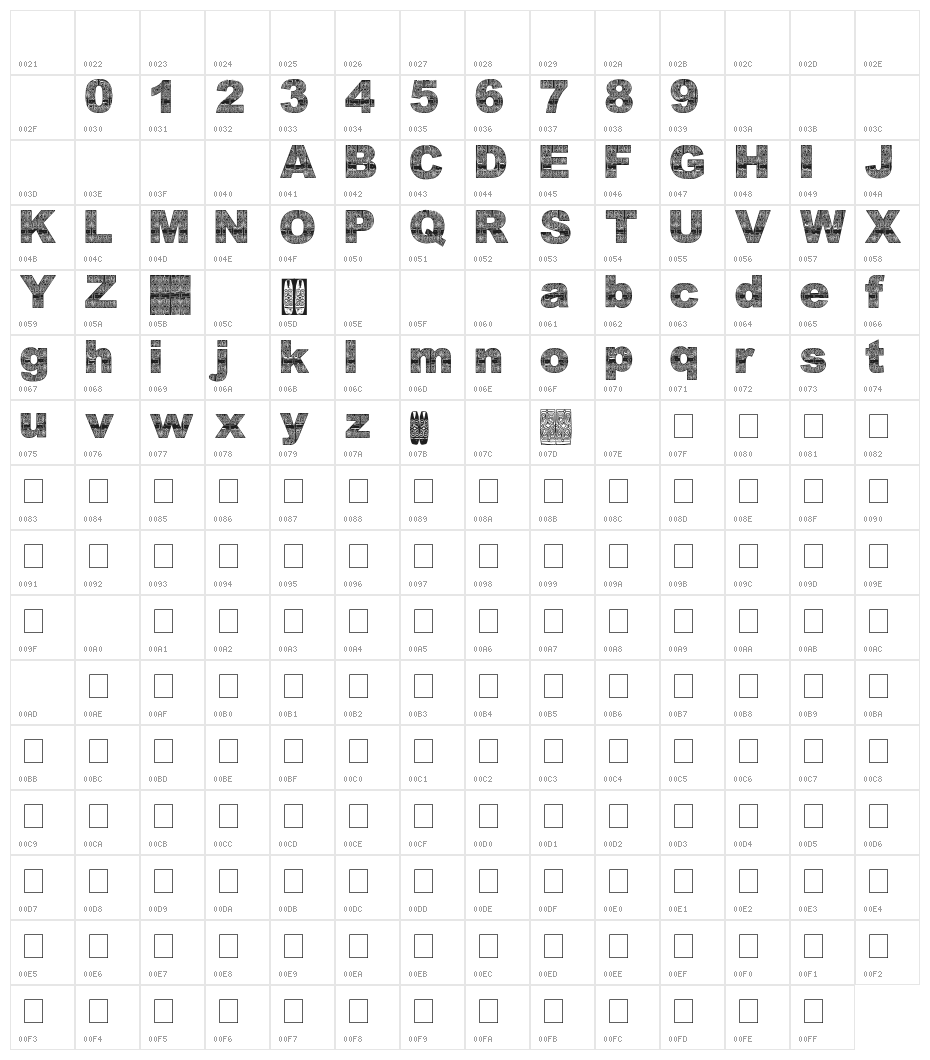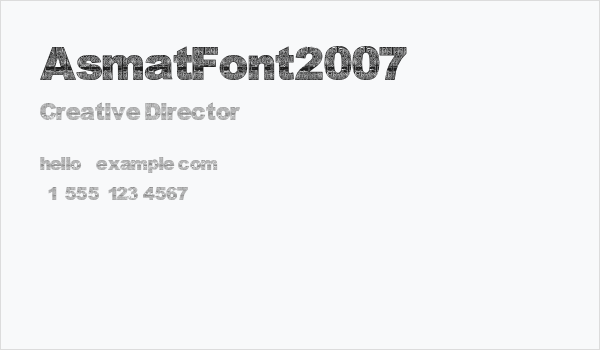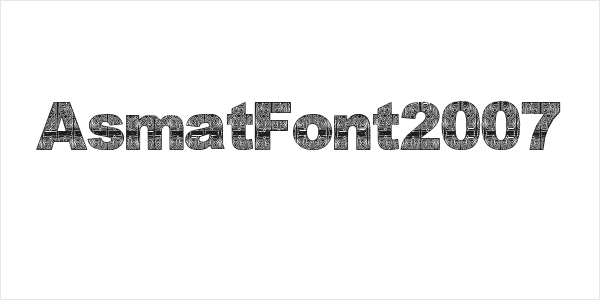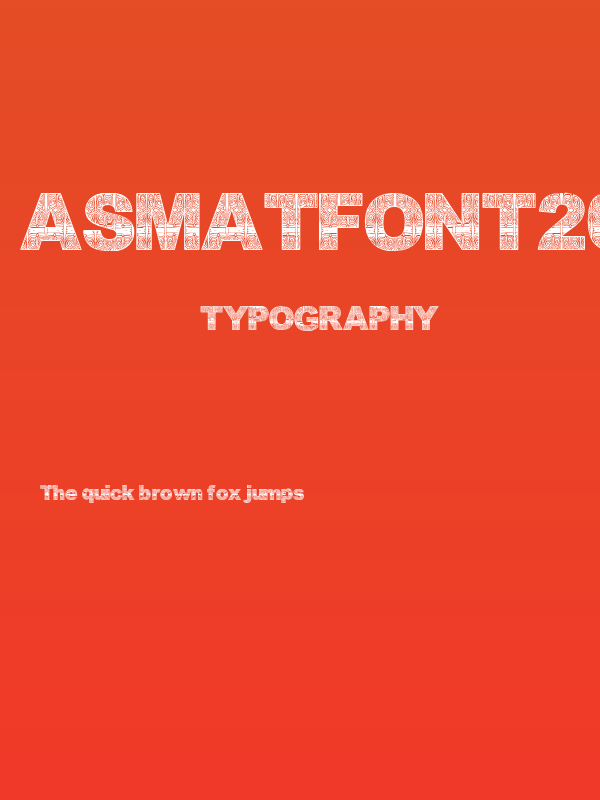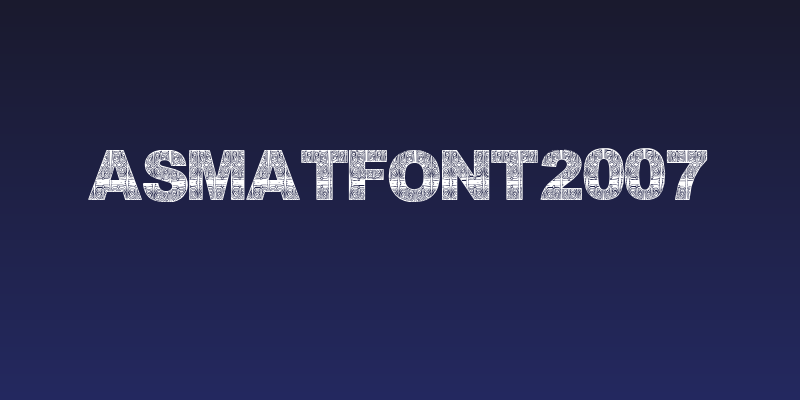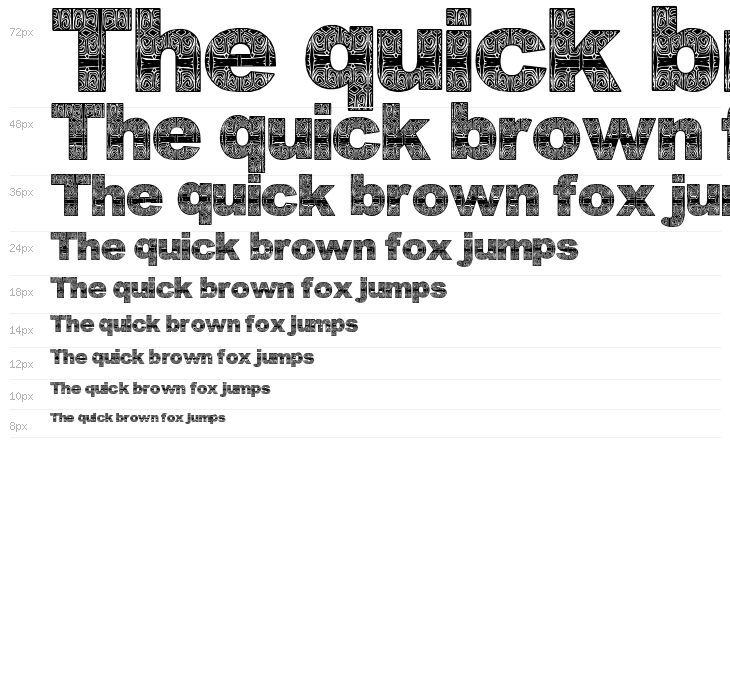
AsmatFont2007 Font
AsmatFont2007 Description
This font features a bold and decorative style with intricate patterns filling each character. The uppercase and lowercase letters, as well as numbers, are designed with a consistent ornamental theme, making it stand out with its unique artistic flair. The characters are wide and bold, providing a strong visual impact. The detailed patterns within each letter add a layer of complexity and elegance, making it suitable for creative and artistic projects. The font maintains a uniform thickness across all characters, ensuring readability despite its decorative nature.
Proposed ProjectsIdeal for artistic projects, posters, branding, and any design requiring a bold decorative touch.